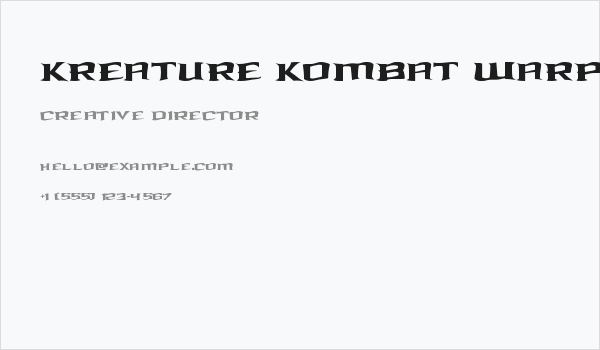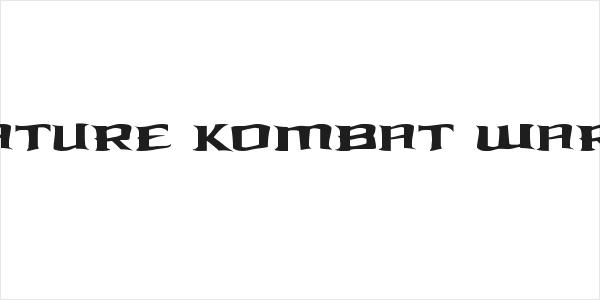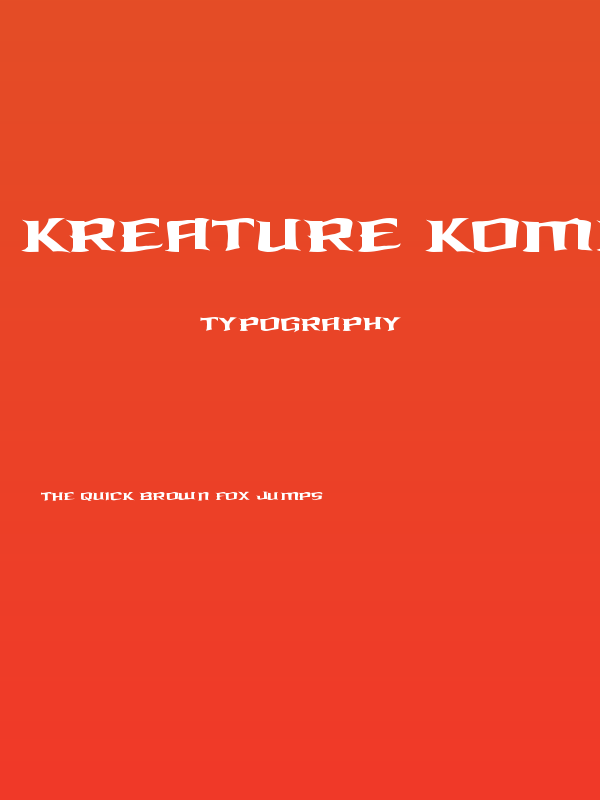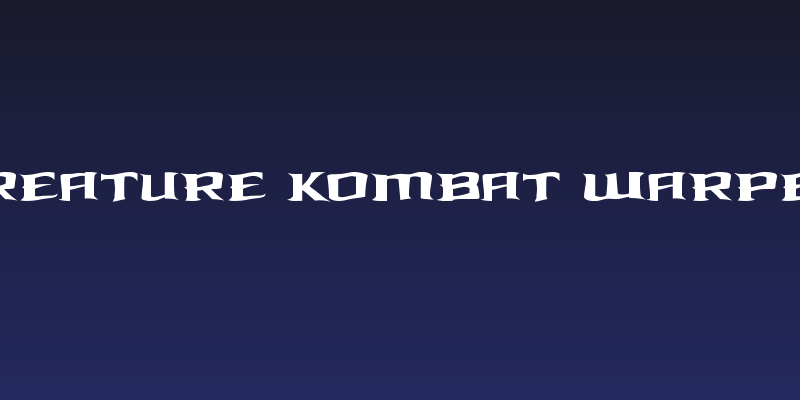
Kreature Kombat Warped Font
Kreature Kombat Warped Description
This font features a bold and dynamic design with sharp, angular edges and a slightly distorted appearance, giving it a unique and edgy look. The characters are heavily stylized, with exaggerated serifs and a sense of movement that suggests a warped or twisted form. The uppercase and lowercase letters maintain a consistent style, while the numbers and special characters follow the same aesthetic, ensuring a cohesive appearance across all glyphs. The font's distinctiveness makes it stand out, suitable for projects that require a strong visual impact.
| Overall Style | Modern, Edgy |
| Proposed Projects | Ideal for video game titles, movie posters, branding for extreme sports, or any project needing a bold, edgy aesthetic. |